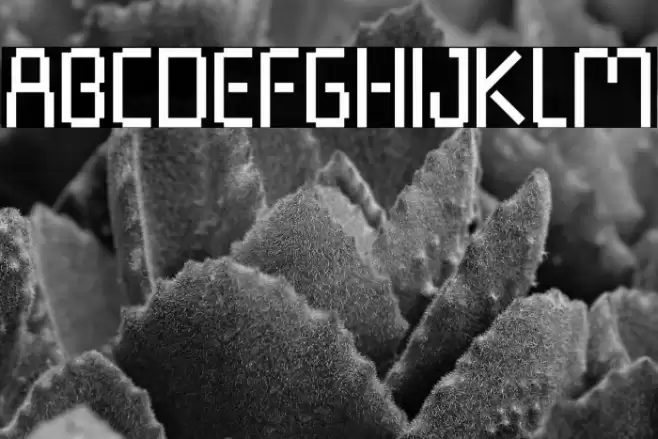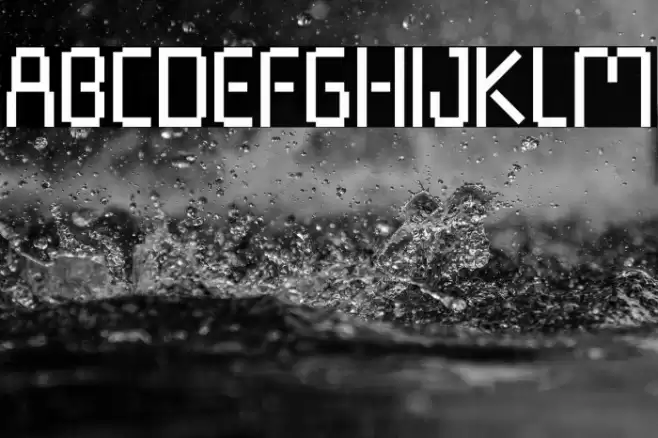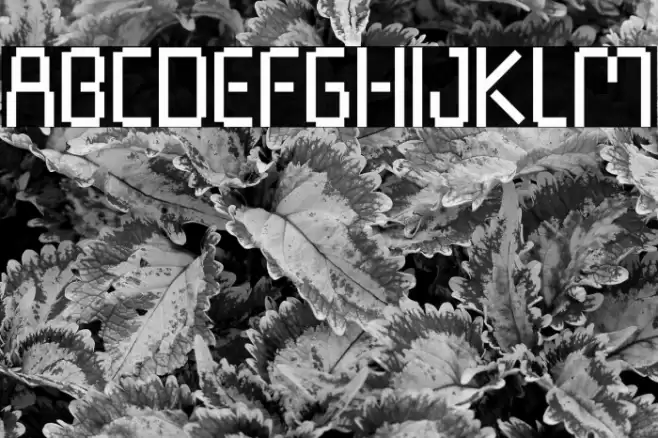
Pixel Rand Font
Pixel Rand Description
This font features a distinct pixelated style reminiscent of early digital displays and classic video games. Each character is constructed with a blocky, grid-like structure, giving it a retro and nostalgic feel. The uppercase and lowercase letters maintain a consistent geometric form, while the numerals and special characters complement the overall aesthetic. The design is straightforward, with sharp angles and uniform line thickness, creating a cohesive and easily recognizable typeface. Its simplicity and clarity make it suitable for digital-themed projects or any design that aims to evoke a sense of nostalgia for the early days of computing.
A pixelated, retro font inspired by early digital displays and video games from Uncategorized fonts.
- Proposed Projects: Ideal for video game design, retro-themed posters, digital art projects, and tech-related branding.
- Overall Style: Retro
- Use Case: Headlines, Logos, Digital Art